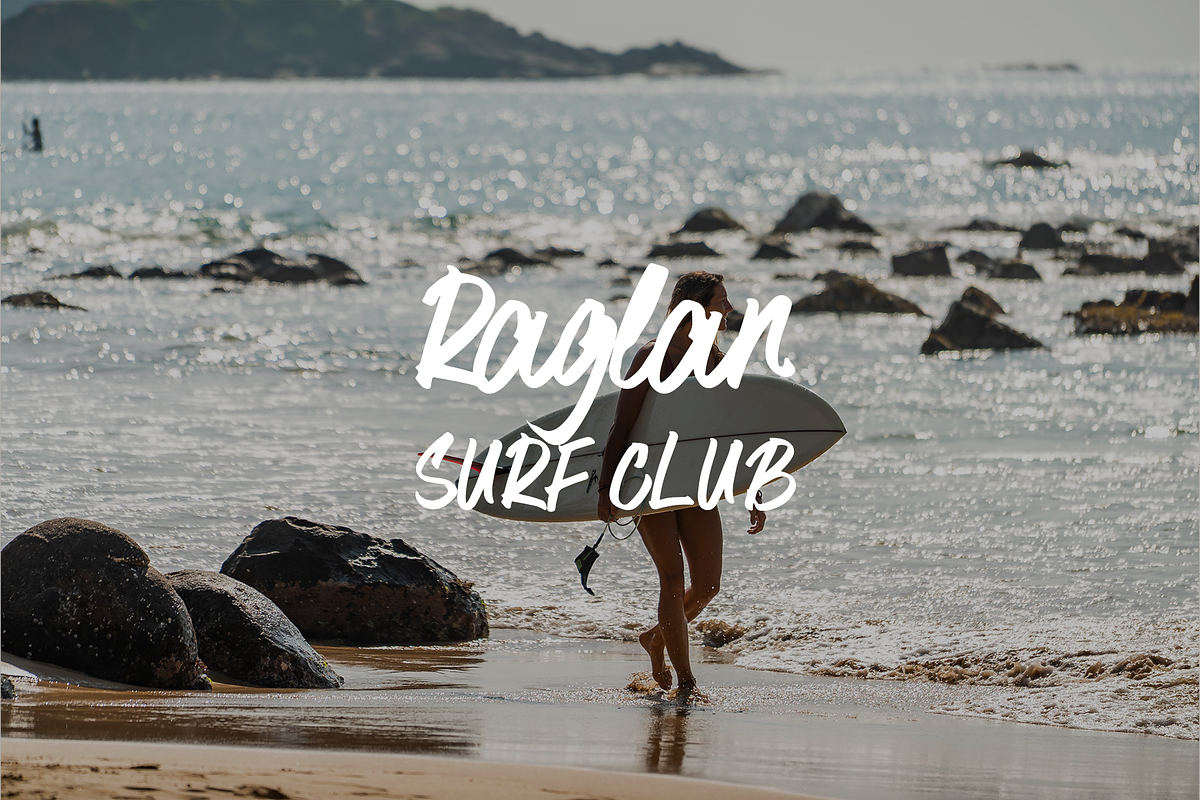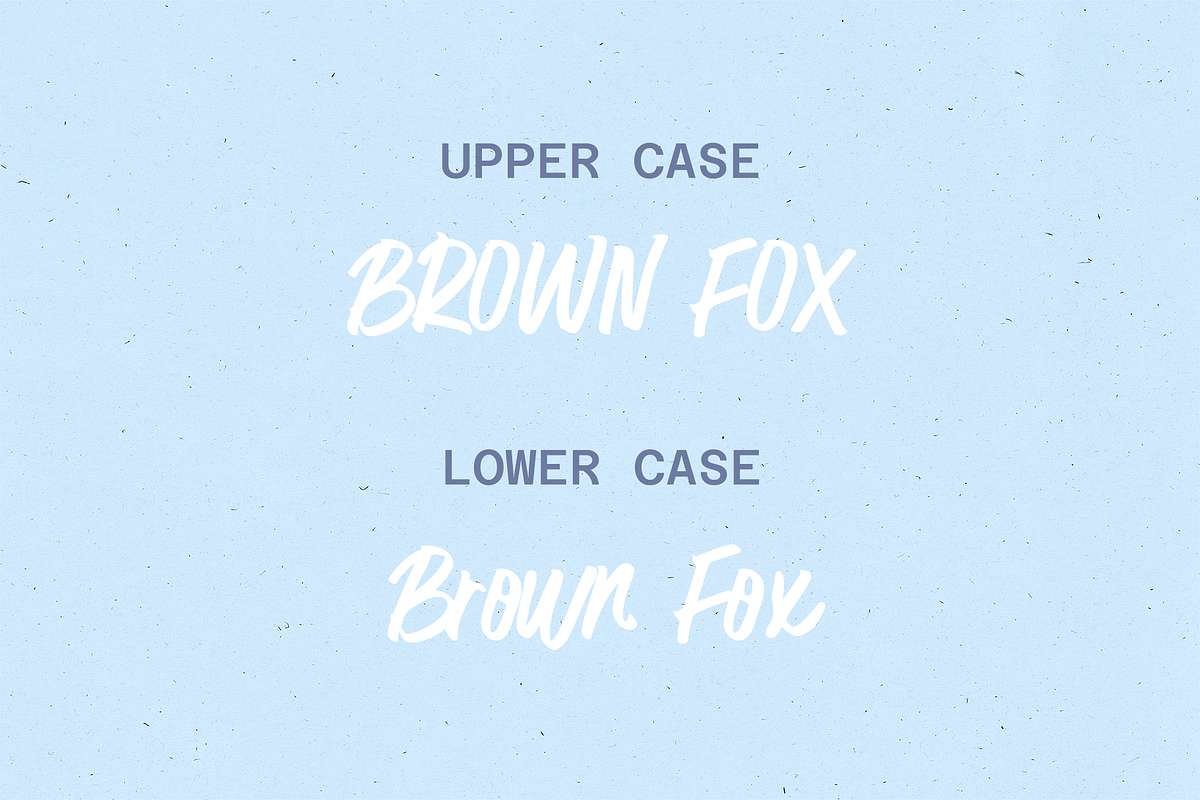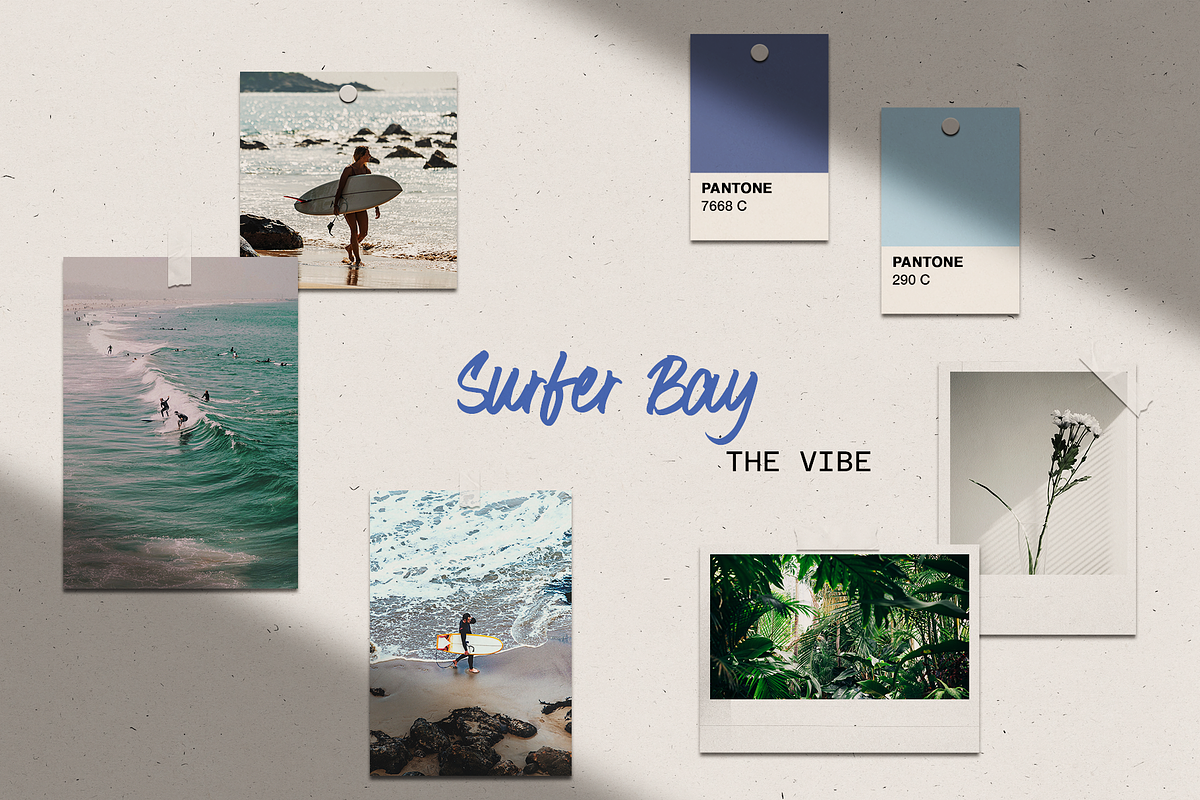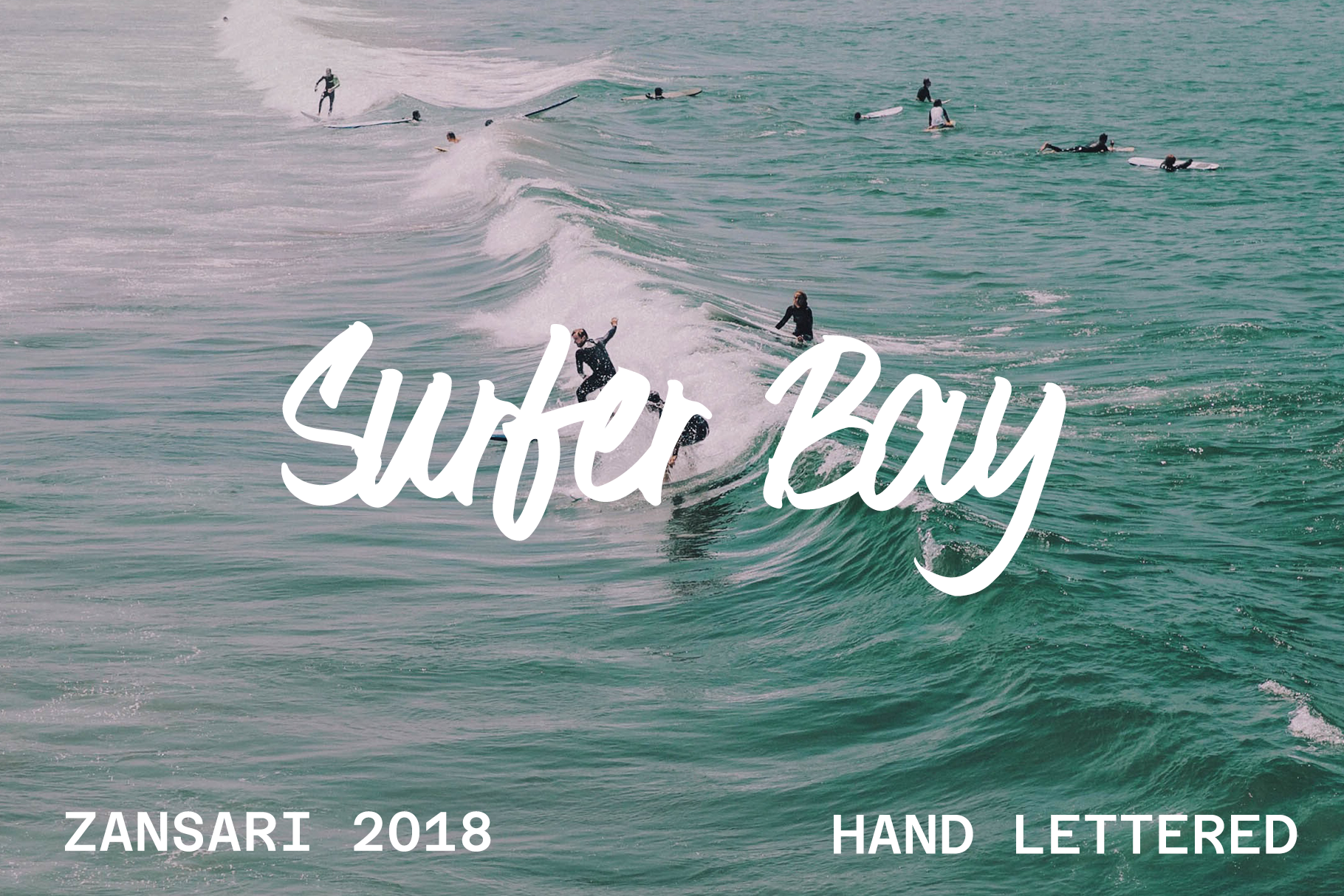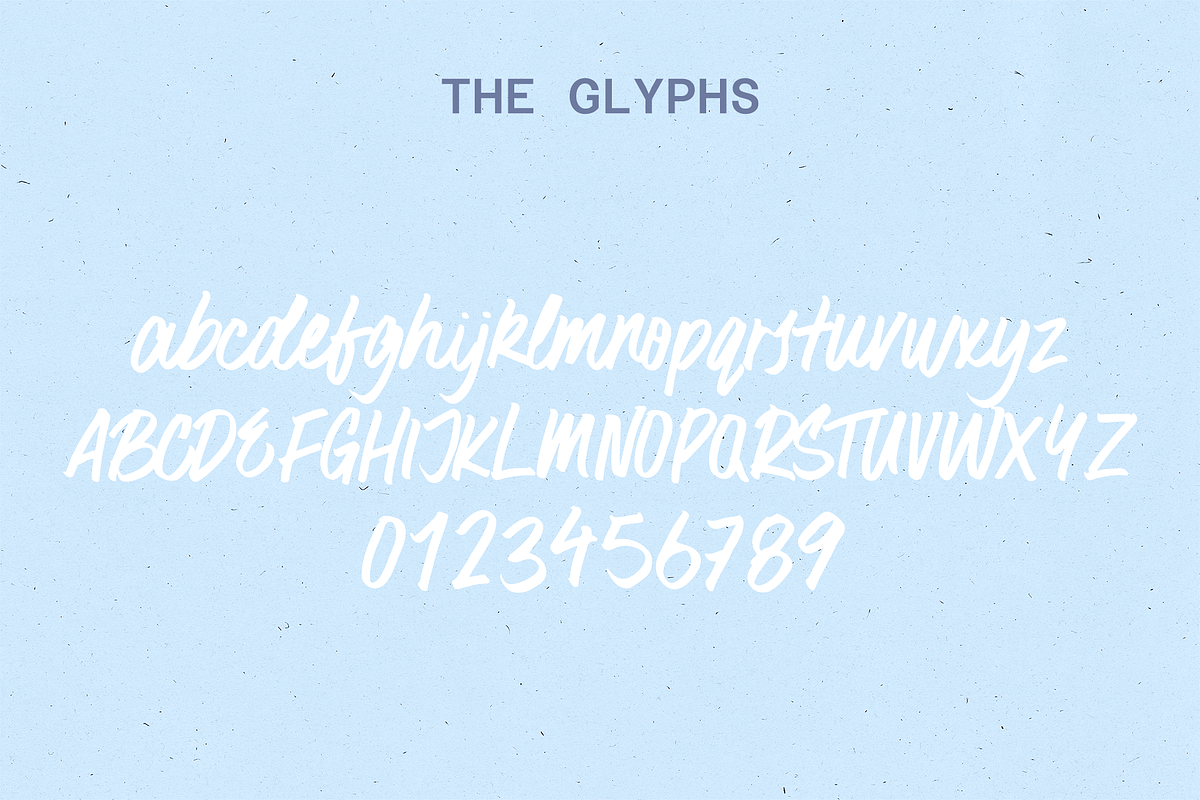
Surfer bay brush font
Surfer Bay brush font is a modern and beachy styled font. The characters were hand painted, then scanned and vectorised into a digital font file. Surfer Bay brush font was designed by Zansari font foundry in Auckland, New Zealand
This font would be perfect for advertisements, logos and crafts like quote posters. This has also been quite a popular blog font